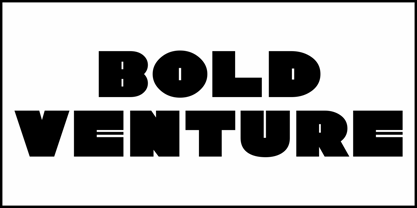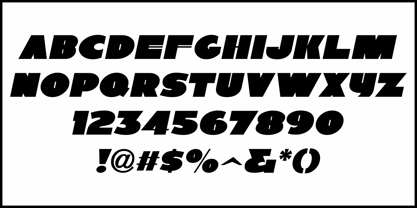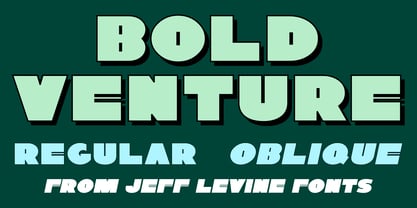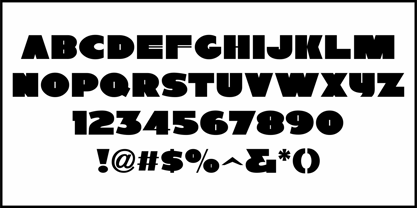
Bold Venture JNL
by Jeff Levine
The Bold Venture JNL Font Family was designed by Jeff Levine and published by Jeff Levine. Bold Venture JNL contains 2 styles and family package options.
An ad in the June 4, 1937 edition of Motion Picture Daily promoted numerous Warner Brothers film releases. Some of the lettering was rendered in a wide and ultra bold sans serif design with Art Deco influences.
This now available as Bold Venture JNL, and is available in both regular and oblique versions.